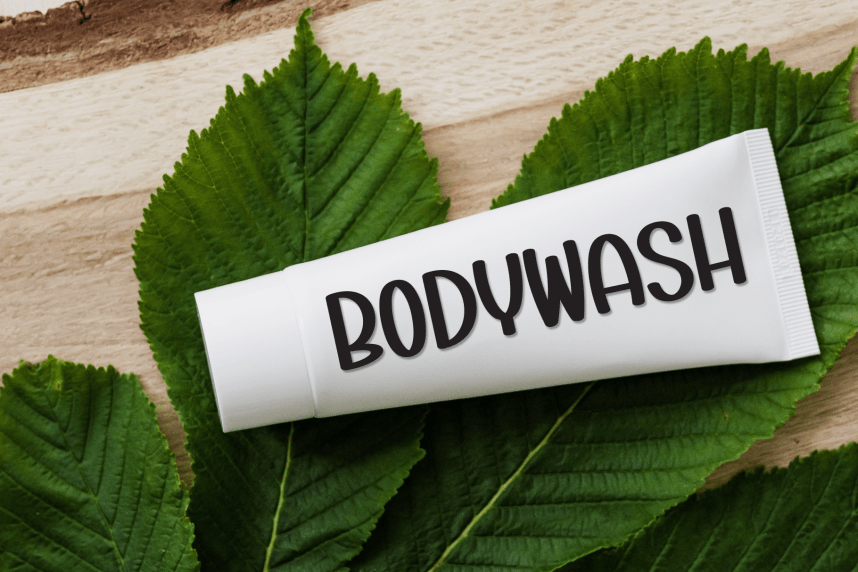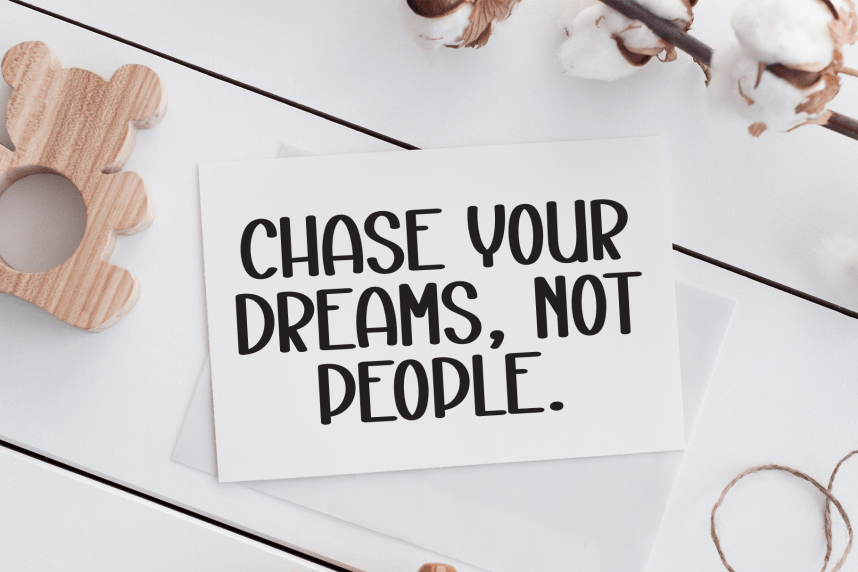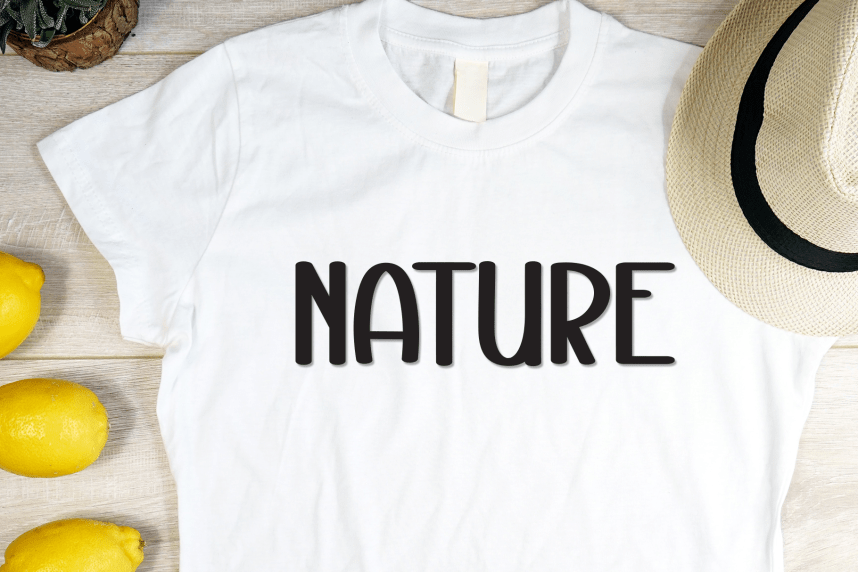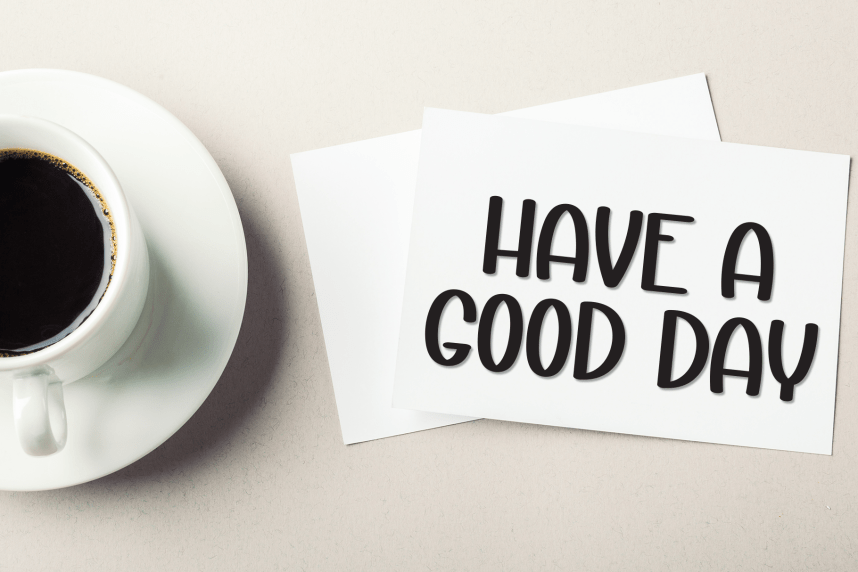
Designer – Moder And Unique Font
Designer – Moder And Unique Font is a sweet and friendly handwritten display font. Cute and fun, this font is ideal for writing wedding invitations, cards, or any other design that might need a playful touch!